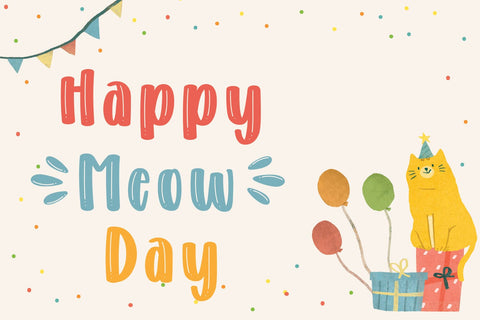
Dreams
Introducing Dreams – Cute and Playful Font.
This font is a delightful and whimsical typeface that captures the essence of cute displays and quirky designs. It radiates a sense of joy and playfulness, making it the perfect choice for various occasions and themes such as spring, autumn, holidays, New Year celebrations, crafting, and embroidery projects.
This font features charming, rounded letterforms with a touch of whimsy in each character. The curves and flourishes add a sense of innocence and fun, evoking the feeling of a carefree spring day or a cozy autumn afternoon. The typeface’s cheerful demeanor makes it an excellent choice for creating invitations, greeting cards, and posters for seasonal festivities.
Whether you’re crafting a holiday-themed banner, adding a playful touch to your embroidery designs, or designing a New Year’s party invitation, this font will infuse your project with a sense of charm and creativity. Its versatility allows it to adapt seamlessly to a wide range of creative endeavors, bringing a touch of whimsy and cuteness to any design you create.